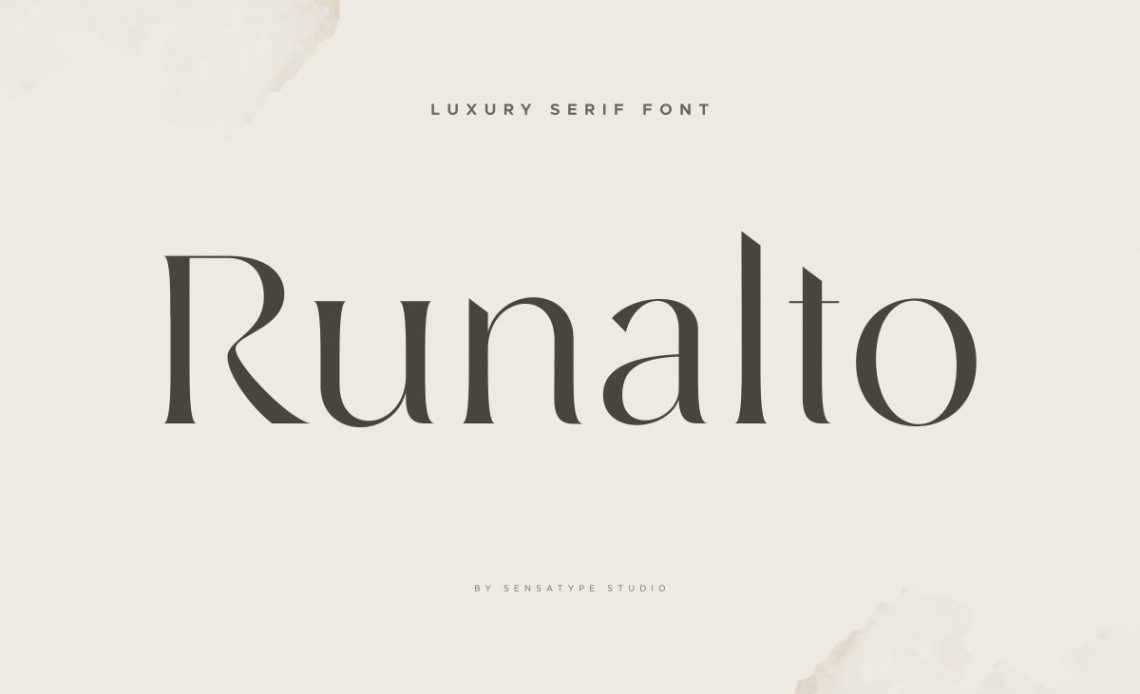
Introducing Runalto - Luxury Serif Font, the perfect choice for anyone looking to elevate their design game. This font is specifically crafted for luxury-themed projects, with its elegant, modern, unique, and classy look. Created by the talented Muhammad Zamroni Hamzah, this font is now part of our Unique & Classy Font Bundle, which includes 11 of our best-selling font collections at a whopping 80% discount!
Runalto is a display serif font that oozes luxury and sophistication. Its intricate design and attention to detail make it the best font for beauty logos, social media, branding, magazine covers, and any other project that needs a touch of luxury. With its full set of uppercase and lowercase letters, multilingual characters, numerals, and punctuation, Runalto gives you the freedom to create beautiful and professional-looking designs.